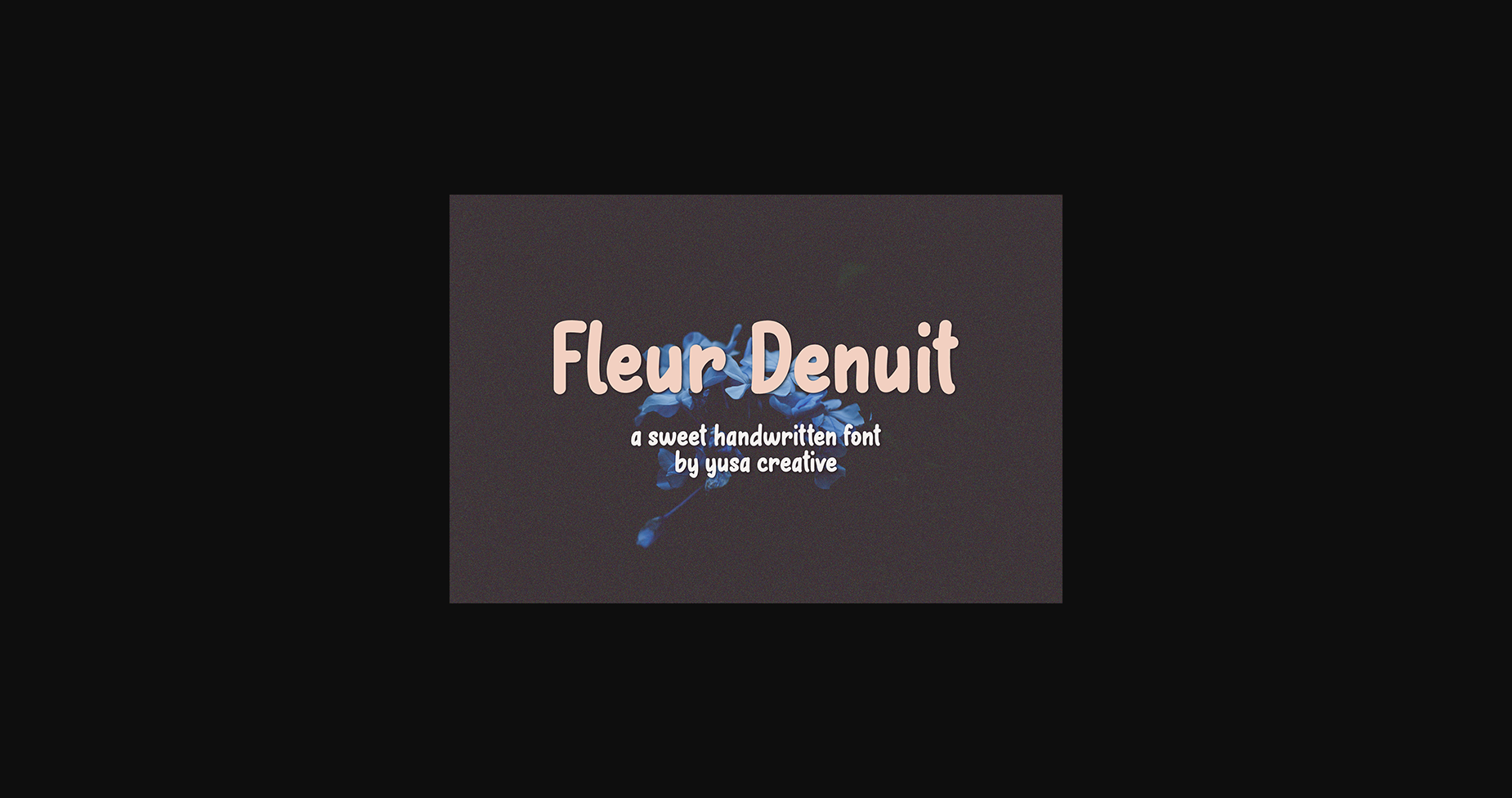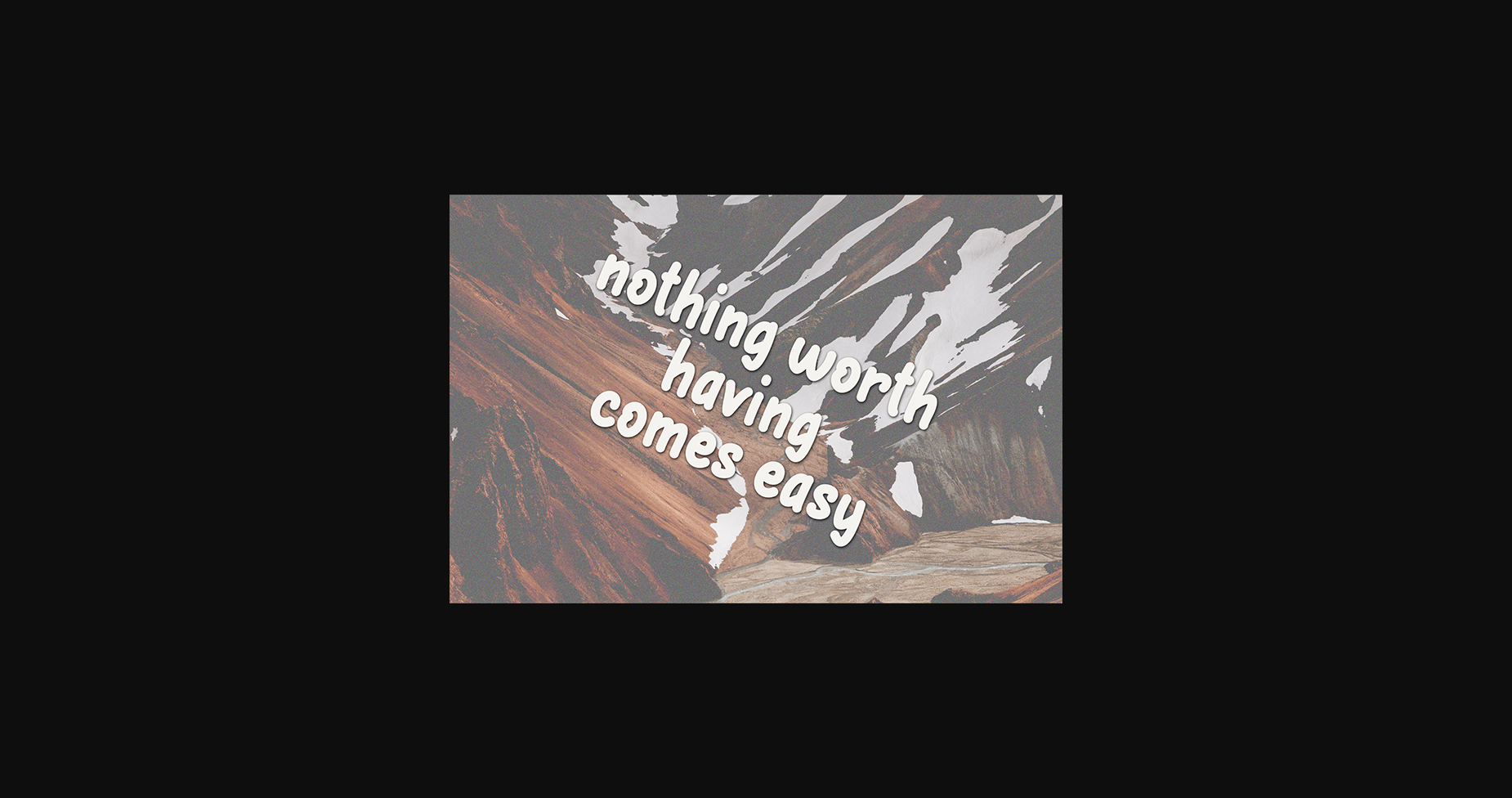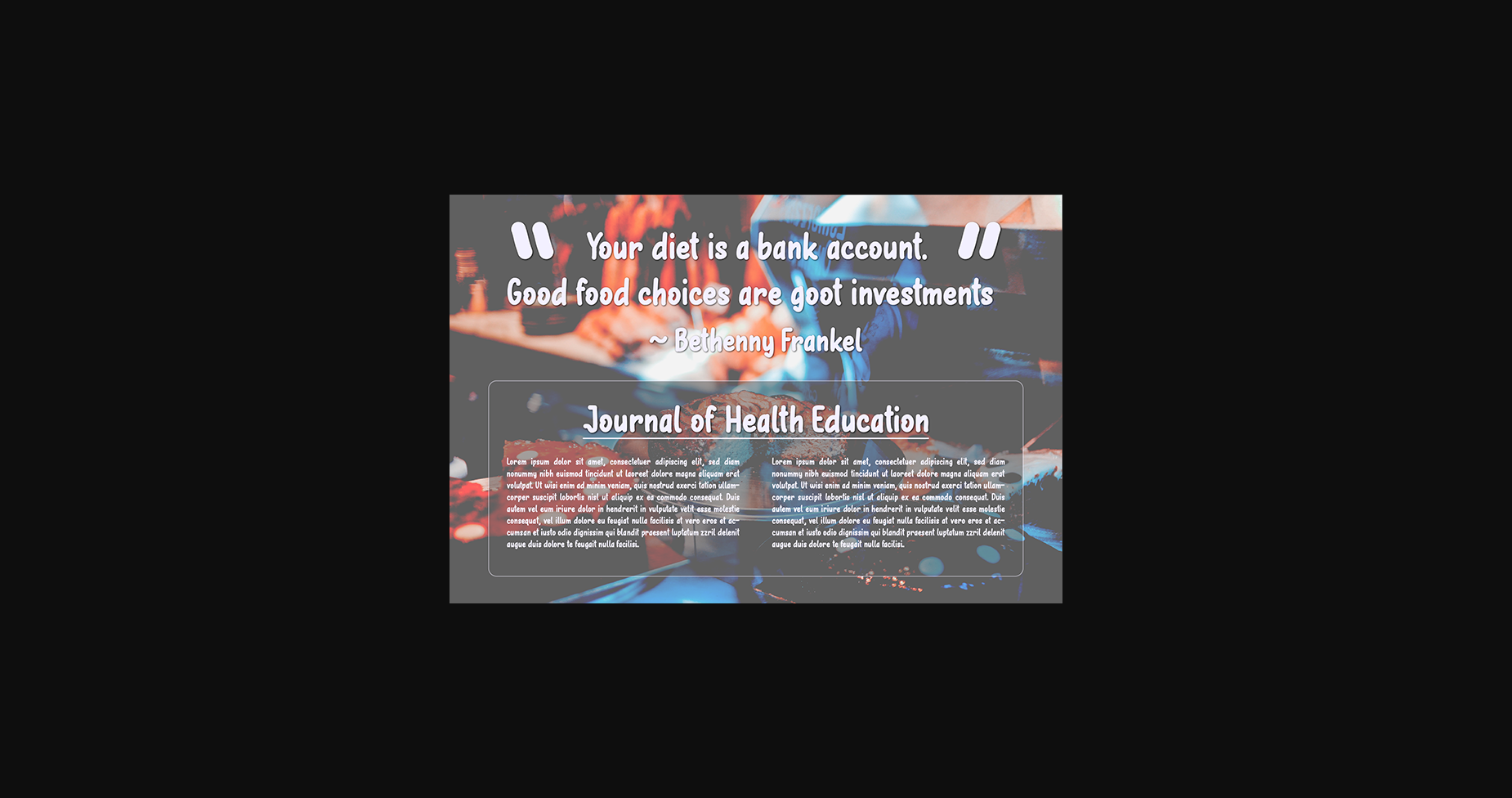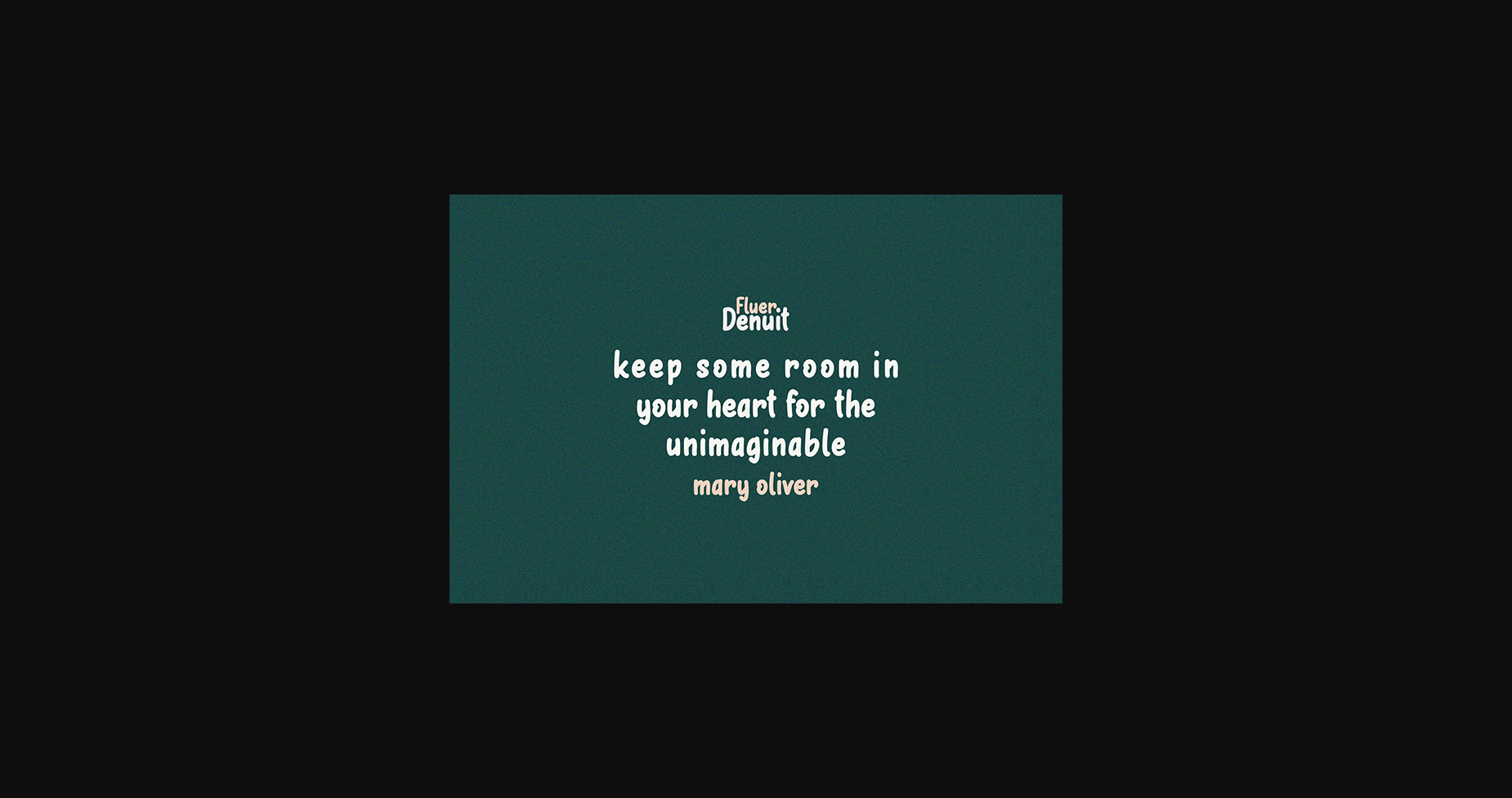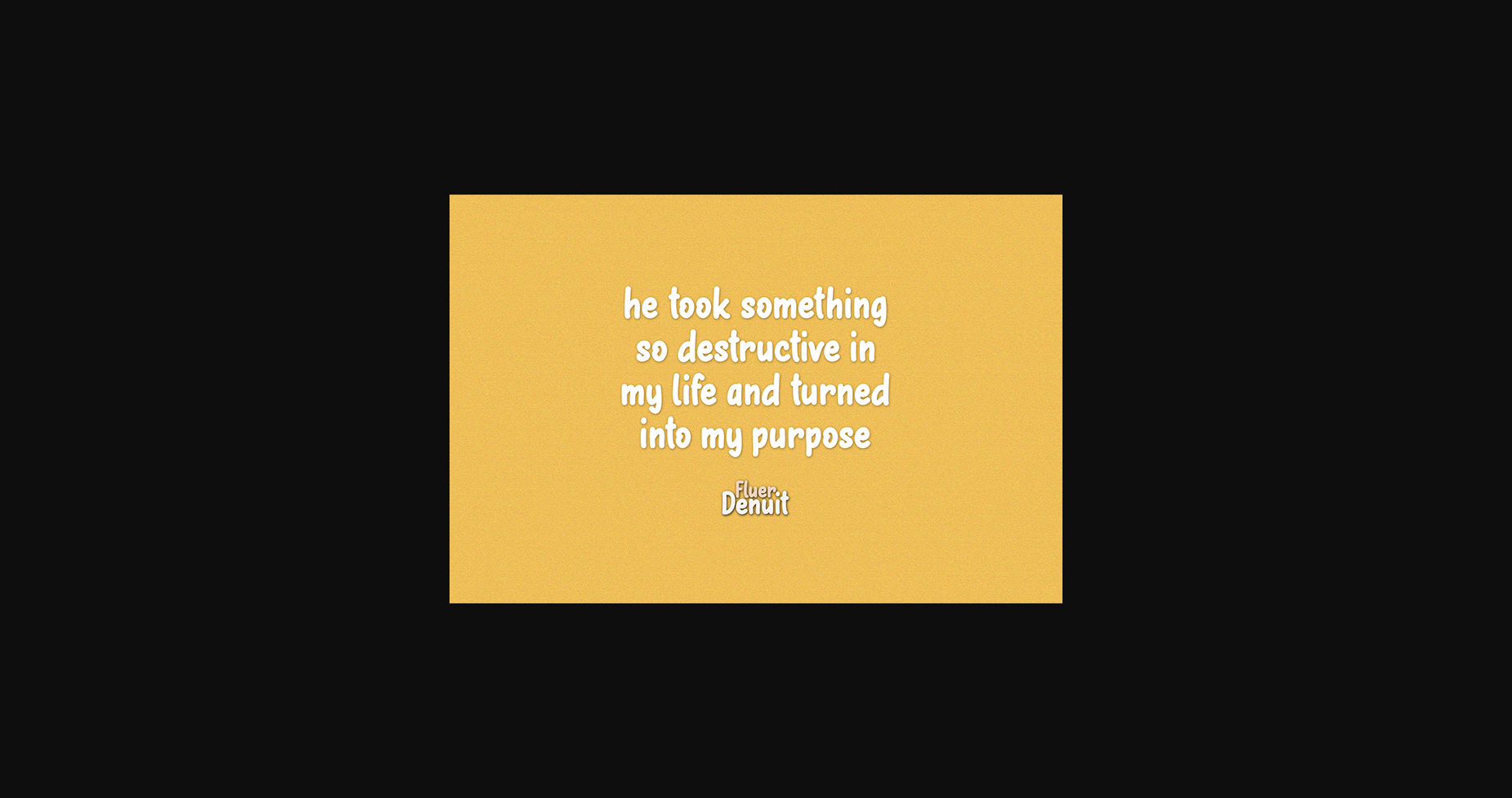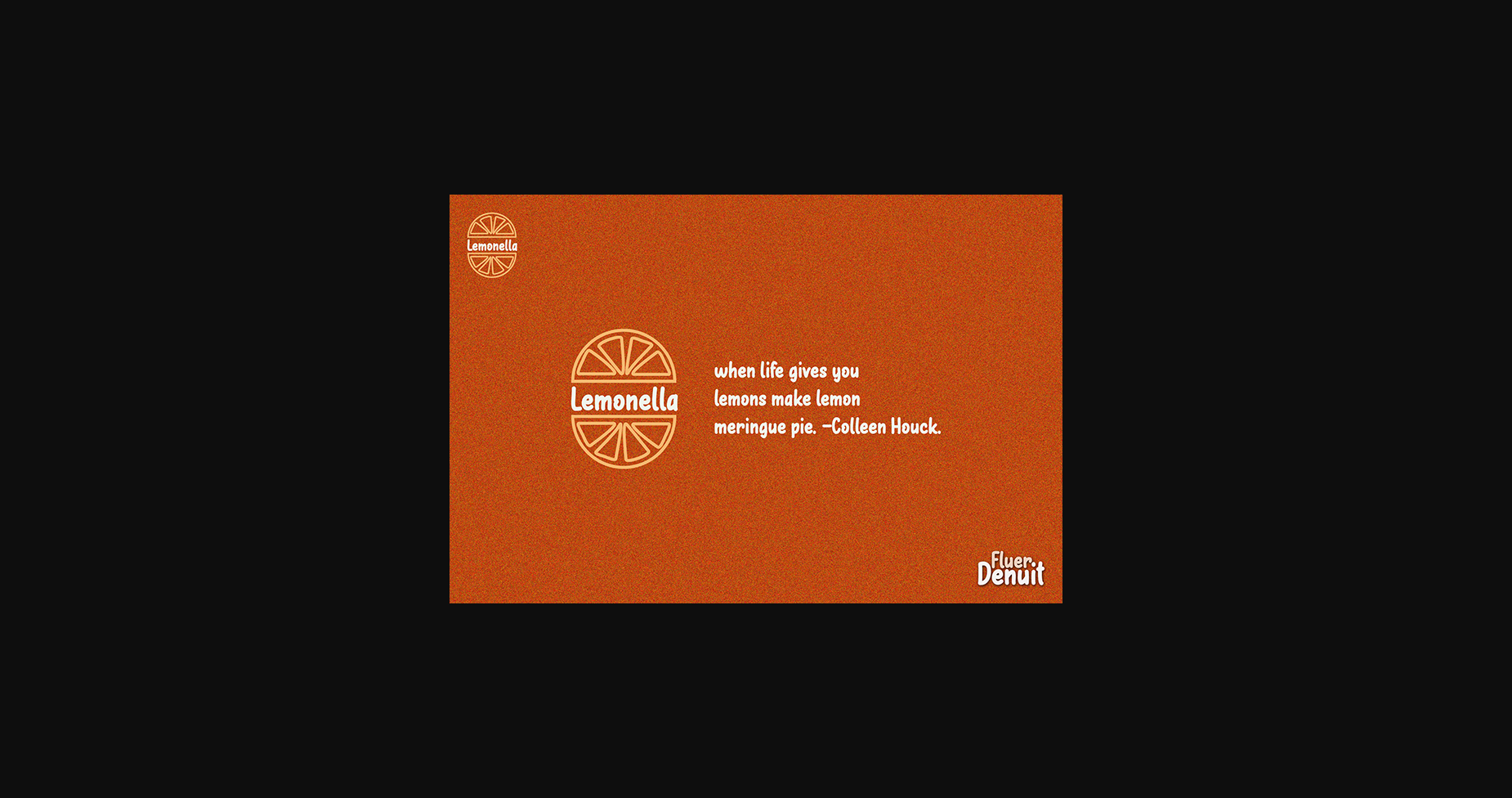
Fleur Denuit Font
Fleur Denuit is a cool and neat sans serif font. Simple but with a strong visual effect, this font will instantly make your creation more appealing than any others.